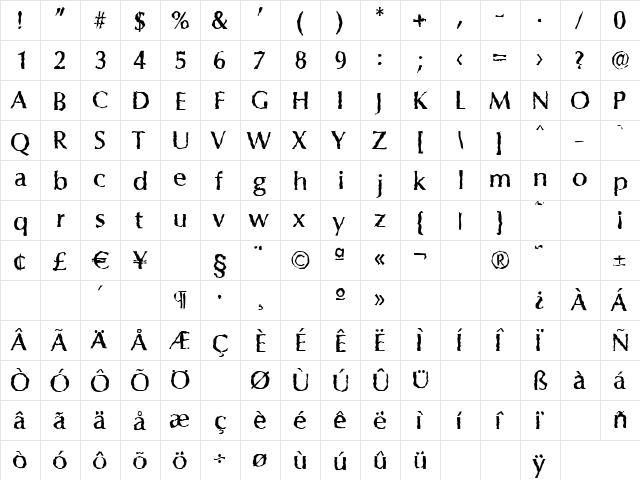
EricBeckerRandom-Medium Regular
Design Context for EricBeckerRandom-Medium Typeface
EricBeckerRandom-Medium takes a measured approach to typography — its balanced proportions and neutral character make it a reliable workhorse for both digital and print work.